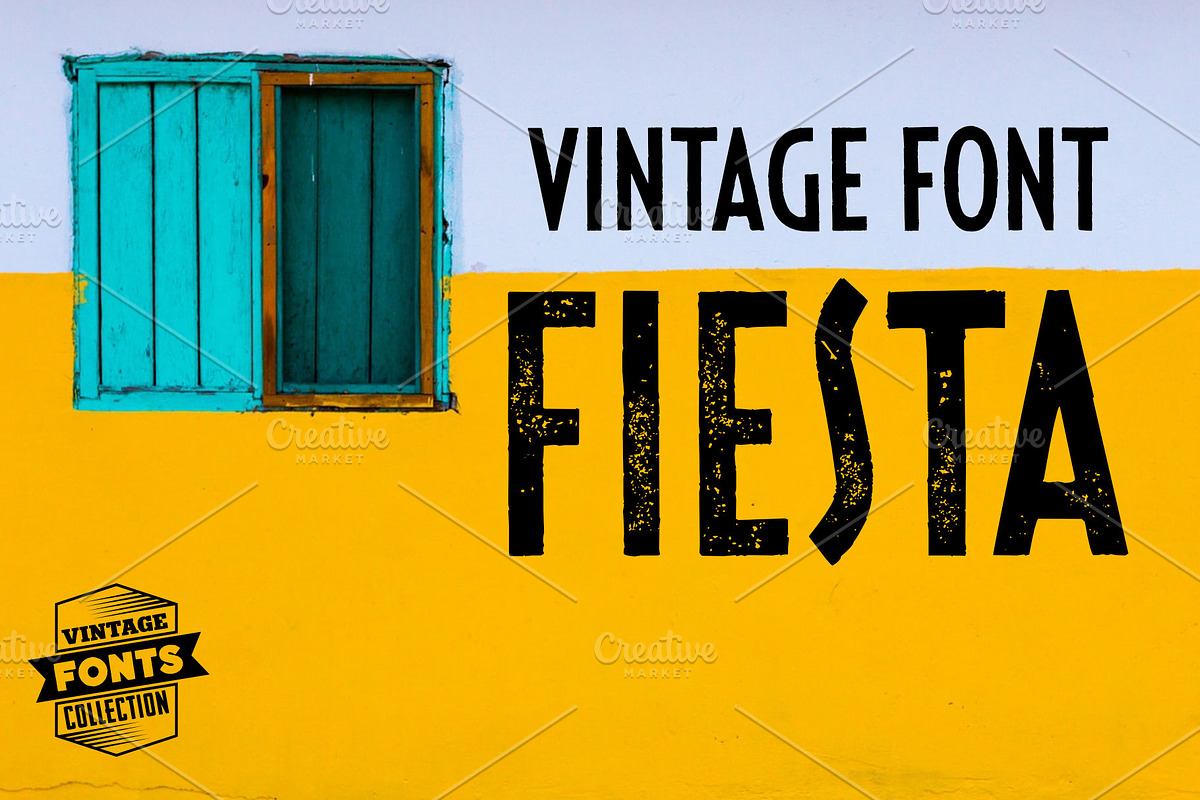
Fiesta - 2 vintage fonts Free Download
Fiesta – 2 Vintage Fonts Free Download
Please note that you must purchase this font bundle for commercial use. You can download Fiesta – 2 Vintage Fonts for free, strictly for personal testing purposes only. Fiesta is a collection of two vintage-inspired fonts designed to capture the timeless charm and elegance of classic typography. Perfect for retro branding, event posters, logos, product packaging, and social media content, Fiesta Fonts Free Download brings a touch of nostalgia and creative flair to your designs.
Both fonts in this bundle offer unique characteristics—one is bold and striking for display use, while the other is more subtle, adding sophistication and refinement. Together, they create a versatile pairing that can be used in a wide variety of creative projects. These fonts include uppercase and lowercase letters, numerals, punctuation, and multilingual support.
Whether you’re designing for a vintage brand, creating eye-catching promotional materials, or crafting retro-themed content, Fiesta delivers style, personality, and a touch of the past.